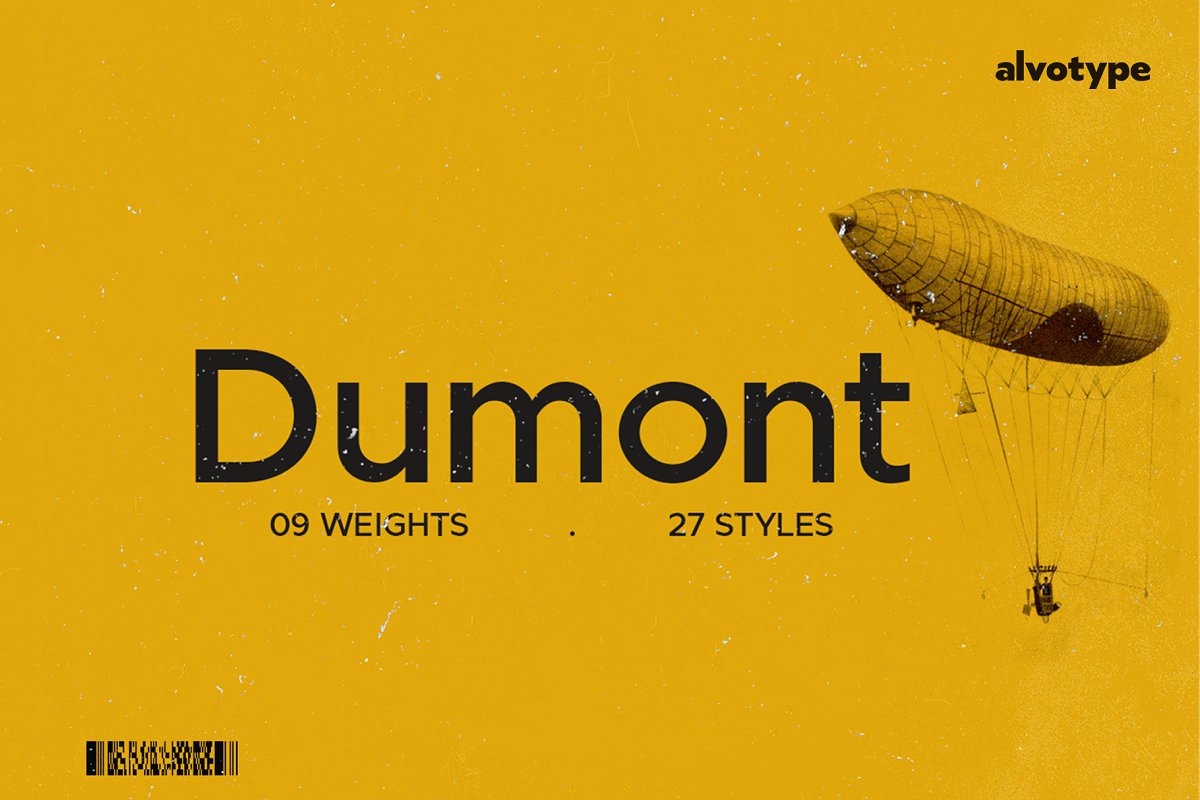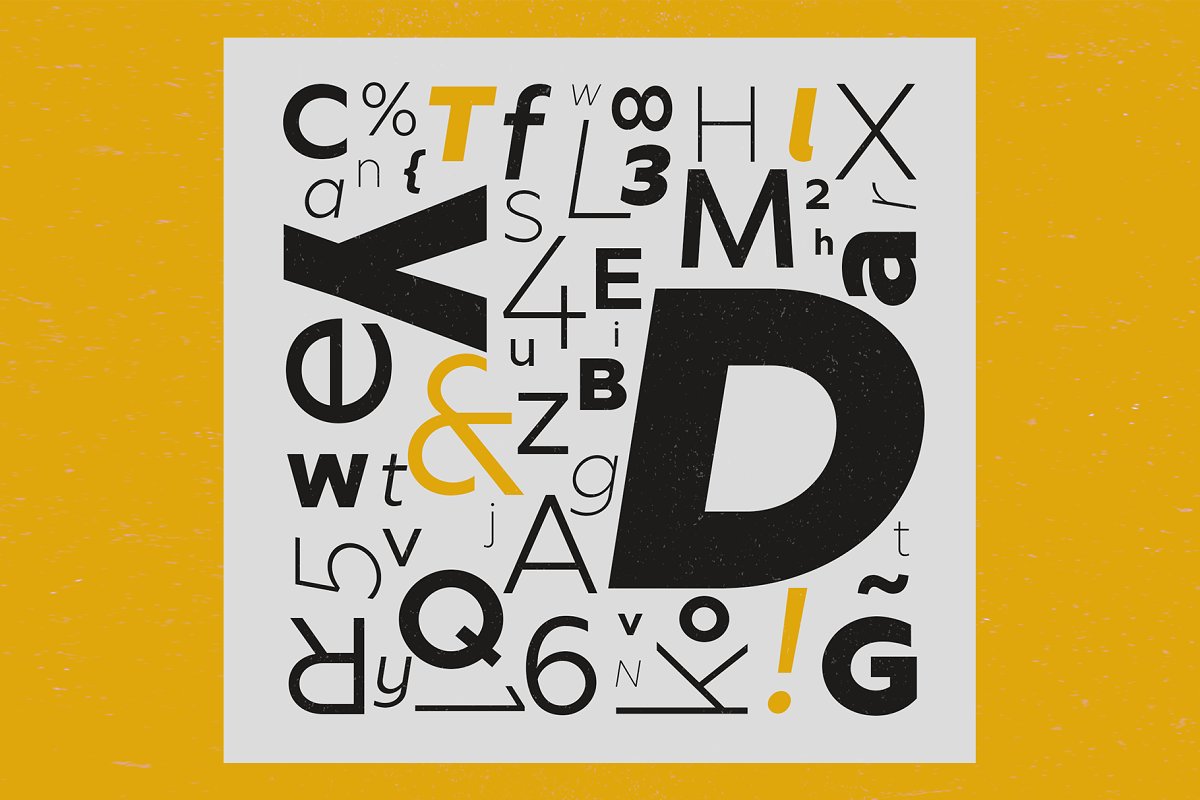
About the Dumont | 27 styles [90% OFF]
Dumont is a structural, geometric sans-serif font family with 27 styles, Following the concept of basic geometric shapes, Dumont focuses on elegance, readability and versatility, either for small texts or headlines,